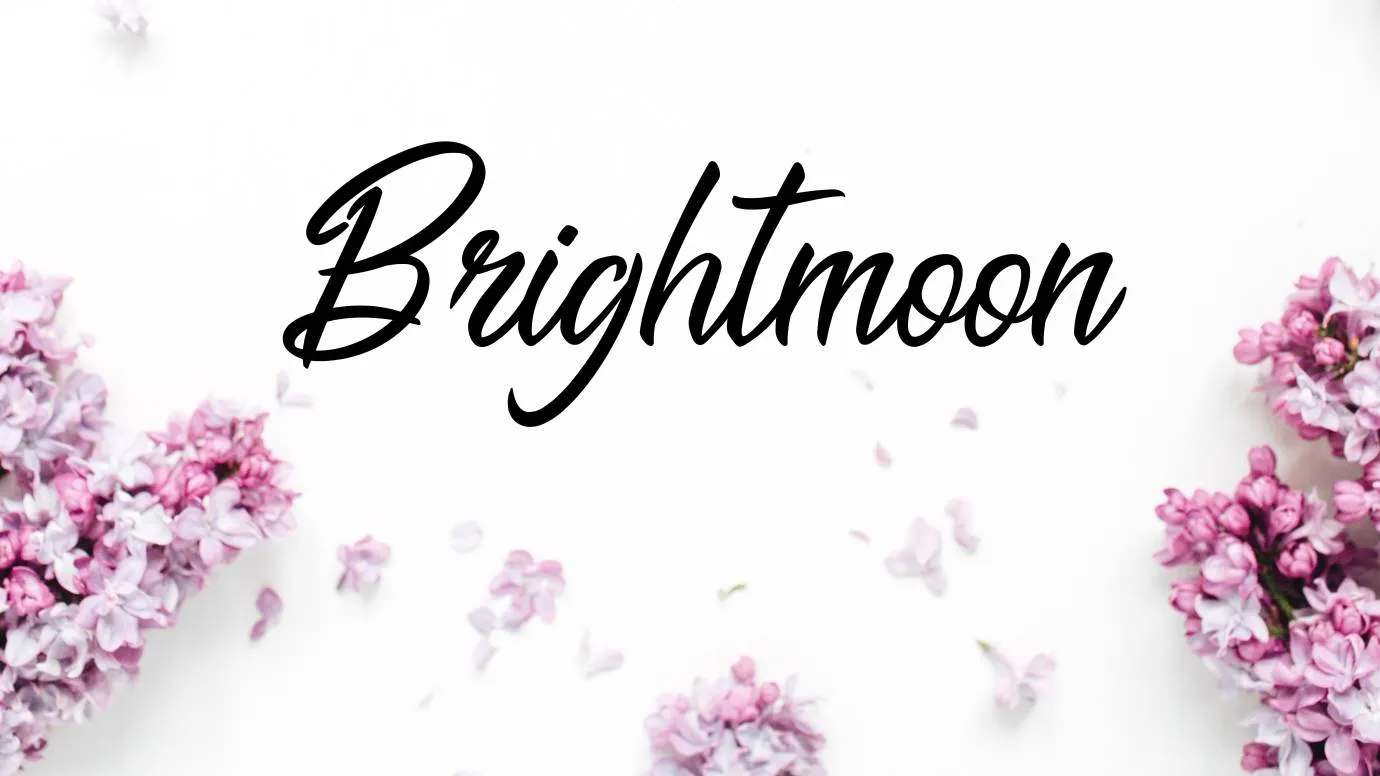
Brightmoon Font Family is a modern and advanced calligraphic typeface. Fazrian Zahrawani is an intelligent mind designer who works on the creation of this typeface.
This classic font family has attractive and classic characters, ligatures, numerals, and punctuation. This stunning texture is obtainable in a regular style which is perfect for all general-purpose designs.
| Name | Brightmoon Font |
| Type | Script |
| Designer | Fazrian Zahrawani |